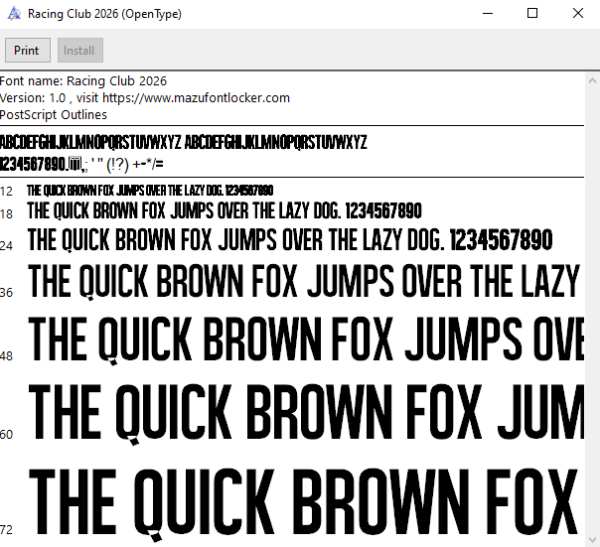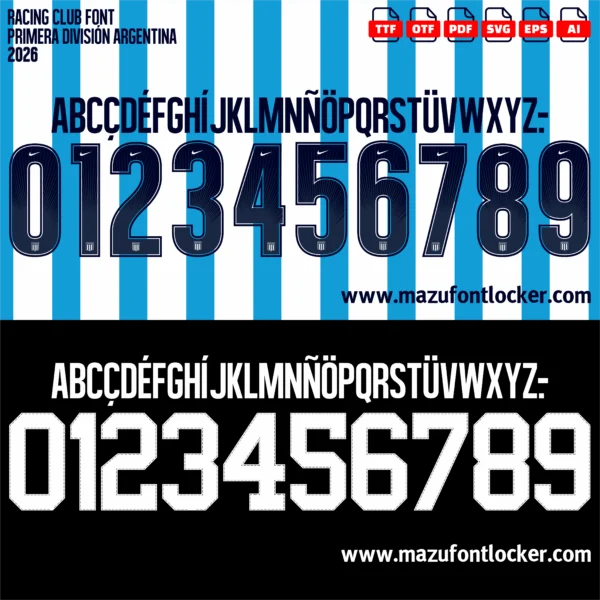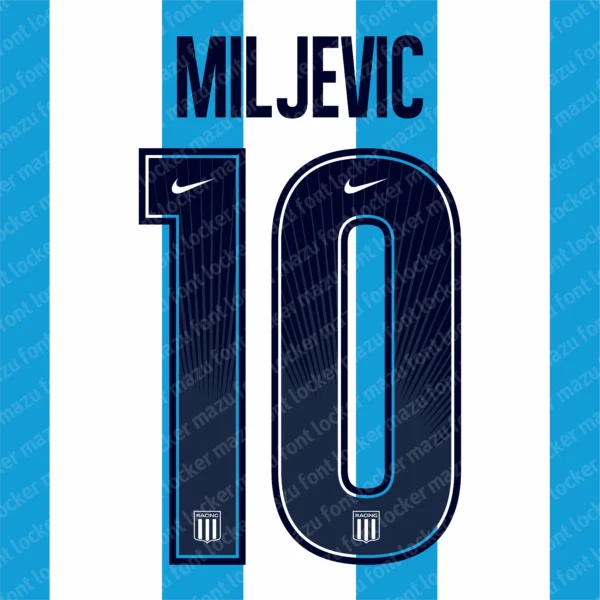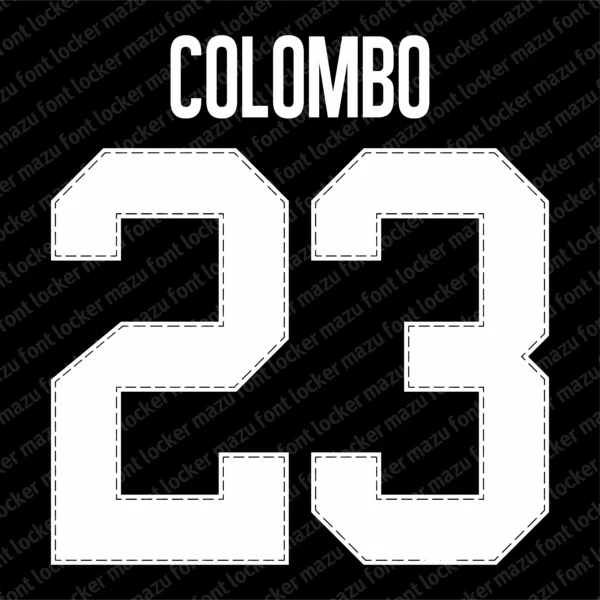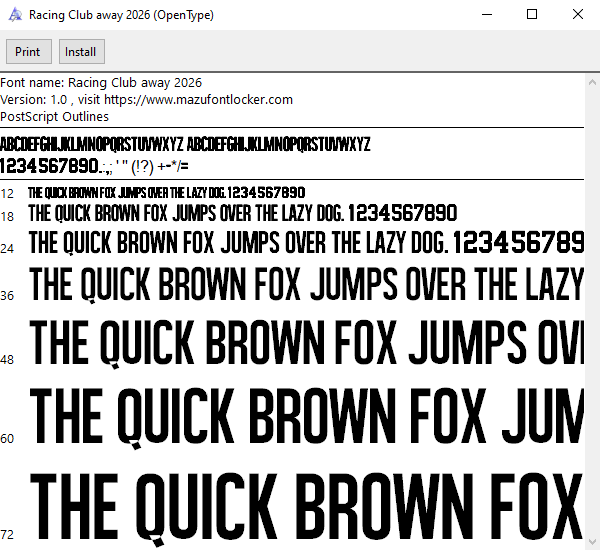
Racing Club 2026 Font Vector – Legendary La Academia Masterpiece
This font captures the razor-sharp, thunderous lettering that embodies Racing Club’s proud club identity, rich Argentine football heritage, iconic light-blue-and-white tradition, and unstoppable fighting spirit — delivering premium quality and explosive energy for jersey mockups, football graphics, sports branding, and fan creations.
Racing Club 2026 Font Vector – Academia Premier Typeface
The Racing Club 2026 Font Vector is a premium typeface that accurately recreates the official match lettering worn by Racing Club during their 2026 campaign. This high-quality vector font kit captures the bold, clean, and instantly recognizable typography that perfectly complements the club’s iconic light blue and white identity.
Designed for professional designers, football enthusiasts, and passionate Racing supporters, the Racing Club 2026 Font Vector delivers exceptional authenticity for creating realistic jersey mockups, football merchandise, social media graphics, match posters, and custom fan artwork. Every character has been carefully recreated to match the powerful and precise visual style of one of Argentina’s most historic and successful football clubs.
This font stands out thanks to its precise vector construction and authentic club-inspired styling. Every letter and numeral has been meticulously recreated to match the official shirt lettering used throughout the 2026 season and associated campaigns. Whether you’re producing professional kit templates or creating eye-catching football content, the Racing Club 2026 Font Vector delivers a genuine match-ready appearance inspired by the proud identity of La Academia.
The lettering featured in the Racing Club 2026 Font Vector combines clean geometric lines with powerful modern proportions. The result is a premium and highly readable typeface that reflects Racing Club’s fighting spirit, attacking football, resilience, and proud Argentine heritage.
• Complete uppercase A–Z alphabet and numbers 0–9 in authentic Racing Club 2026 style
• Recreate the distinctive look of Racing Club player names and squad numbers for creative projects